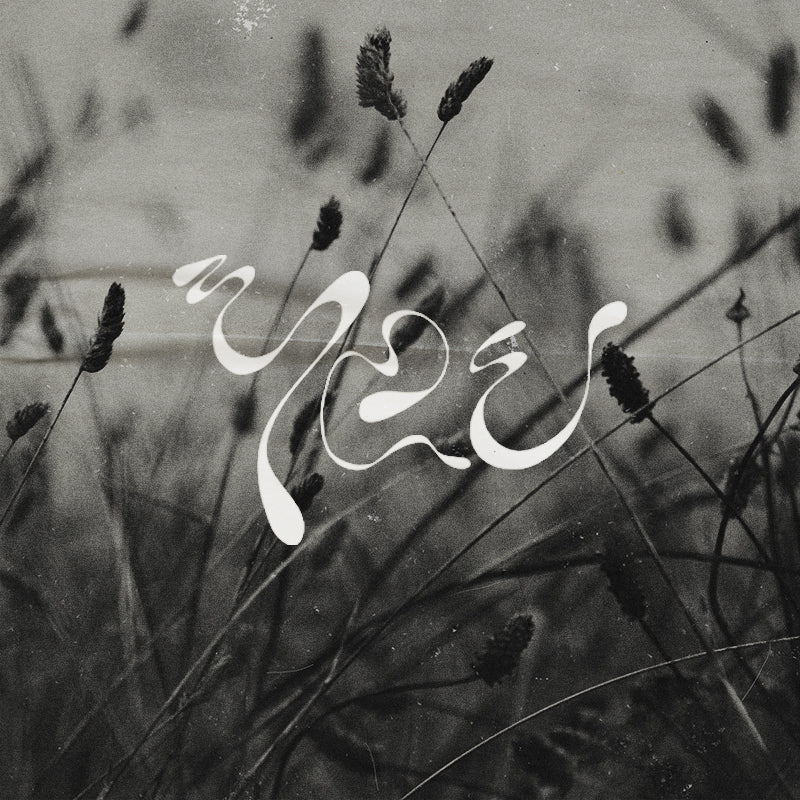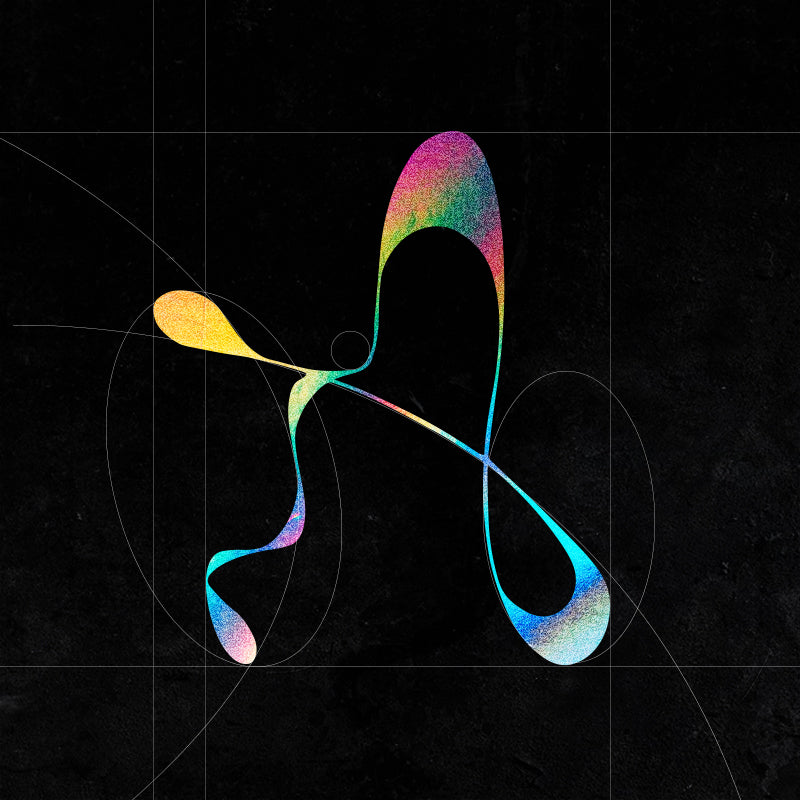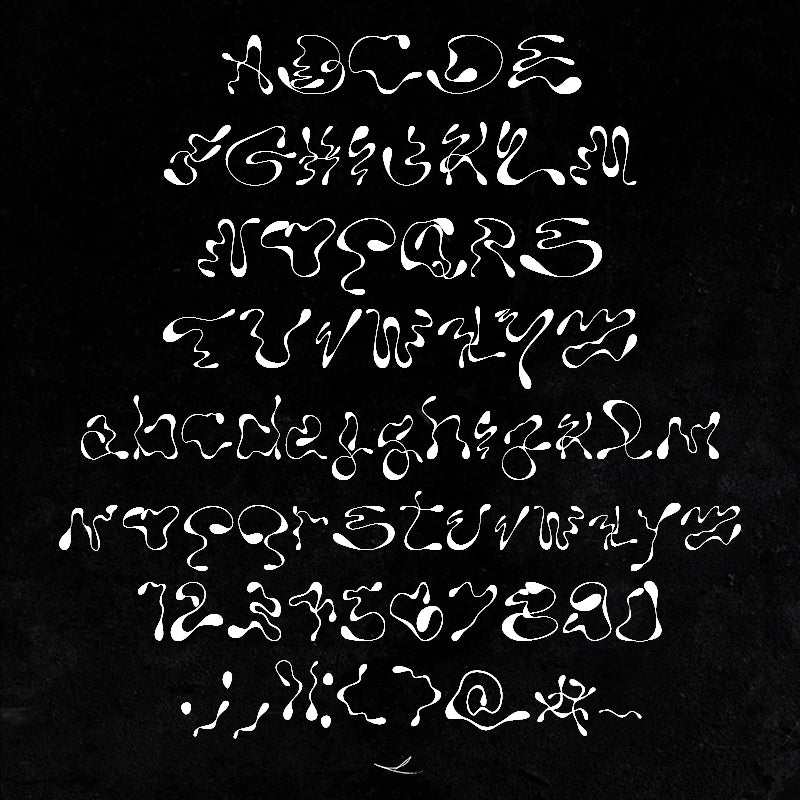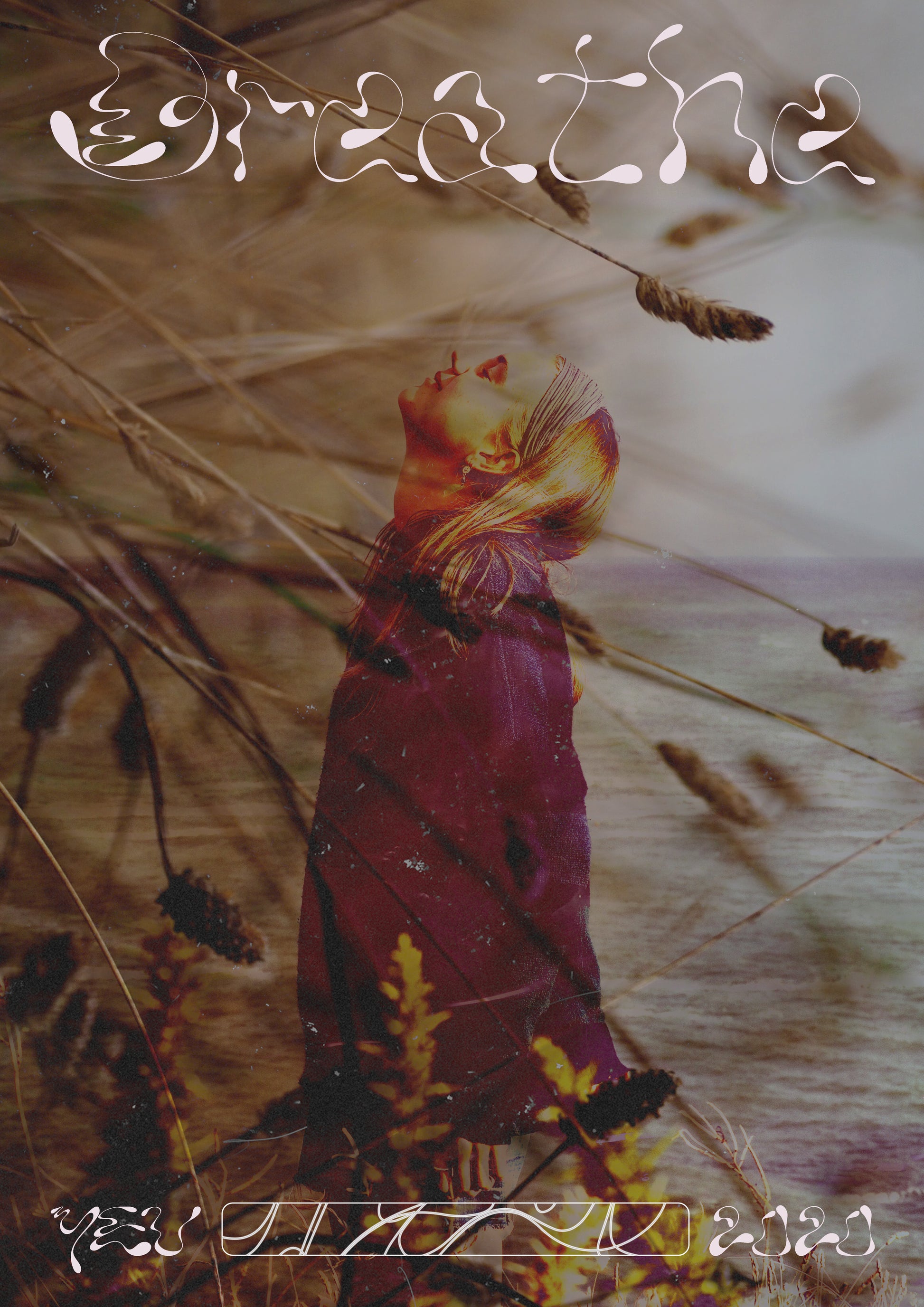
YEU
2020
Unique display typeface inspired by French island. L'ile d'Yeu. This typeface represent the randomness of the naturals elements composing this place, where time seems to
doesn't exist.